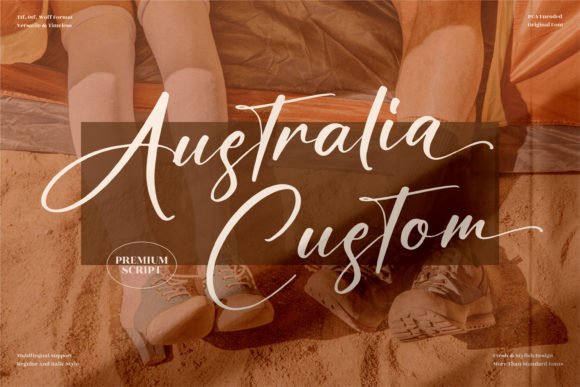
Australia Custom Font: The Perfect Blend of Whimsy and Elegance
Have you ever been on a creative high, staring at a blank page or screen, and suddenly an idea strikes you like a bolt of lightning? That’s exactly what happened to us when we discovered the Australia Custom Font. This lovely script font is designed to add a touch of charm and playfulness to your designs, making it perfect for a wide range of projects.
With its PUA encoded glyphs and swashes, you’ll have endless possibilities to create unique and captivating typography. Whether you’re a seasoned designer or just starting out, the Australia Custom Font is a valuable tool to have in your arsenal. Its versatility and charm make it a must-have for anyone looking to elevate their designs and stand out from the crowd.
- Unique Characteristics: Australia Custom Font features a unique blend of modern and traditional typography, with intricate details and subtle nuances that evoke the spirit of the Australian landscape.
Design Review: Australia Custom Font
Overall, I’m impressed with the unique and modern aesthetic that Australia Custom Font brings to the table. The font has a clean and sleek design that would work well for various applications, from branding to digital products.
- Unique letterforms and subtle flourishes that give the font a distinctive personality
- Excellent legibility, even at smaller font sizes
- Works well in both headline and body copy contexts
- Supports a wide range of languages, making it a versatile option for global brands
- May not be suitable for very formal or traditional branding, as it has a modern and edgy feel
- Some characters, such as the ‘k’ and ‘q’, may require additional styling to ensure consistency with the rest of the font
- Not as extensive a character set as some other fonts, which may limit its use in certain contexts
Overall, I think Australia Custom Font is a great addition to any designer’s toolkit. While it may have some limitations, its unique style and excellent legibility make it a compelling choice for brands looking to make a statement.
Common Use Cases for Australia Custom Font
The Australia Custom Font is ideal for:
- Branding and logos.
- Business cards and stationery.
- Marketing materials and brochures.
- Web design and development.